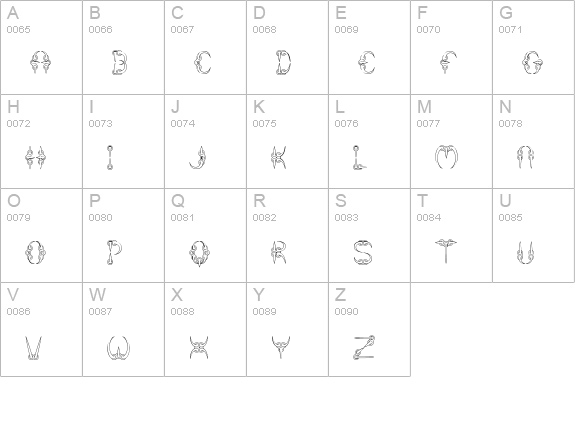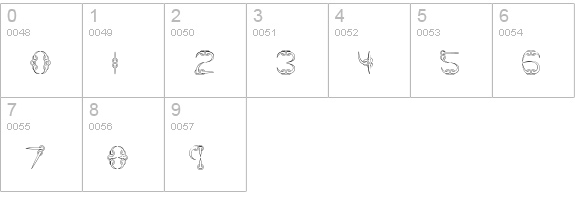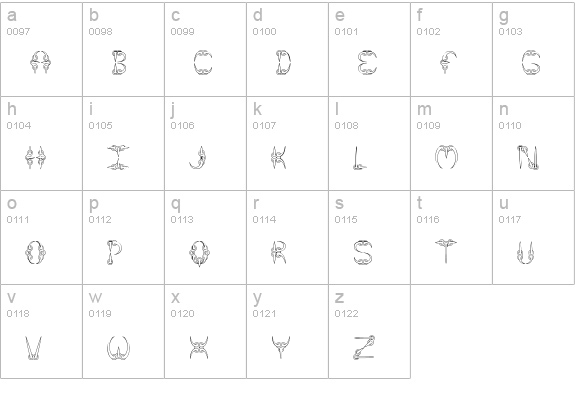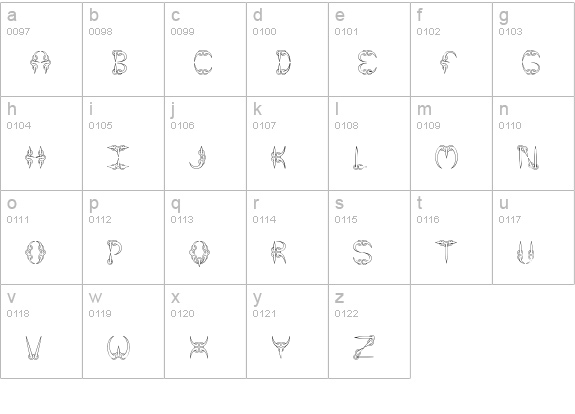
CLAW 2 -BRK- Font Details
CLAW 2 -BRK- font is a bold and striking display typeface designed to make a statement in your designs. With its sharp edges and unique style, this font exudes power and strength. Perfect for branding, headlines, posters, and more, CLAW 2 -BRK- demands attention and leaves a lasting impression. Best of all, this font is available for free download at FontsMarket.com. Whether you're a designer looking to add some edge to your projects or a creator in need of a powerful typeface, CLAW 2 -BRK- is the perfect choice. Download it now and unleash the power of this dynamic font in your designs.